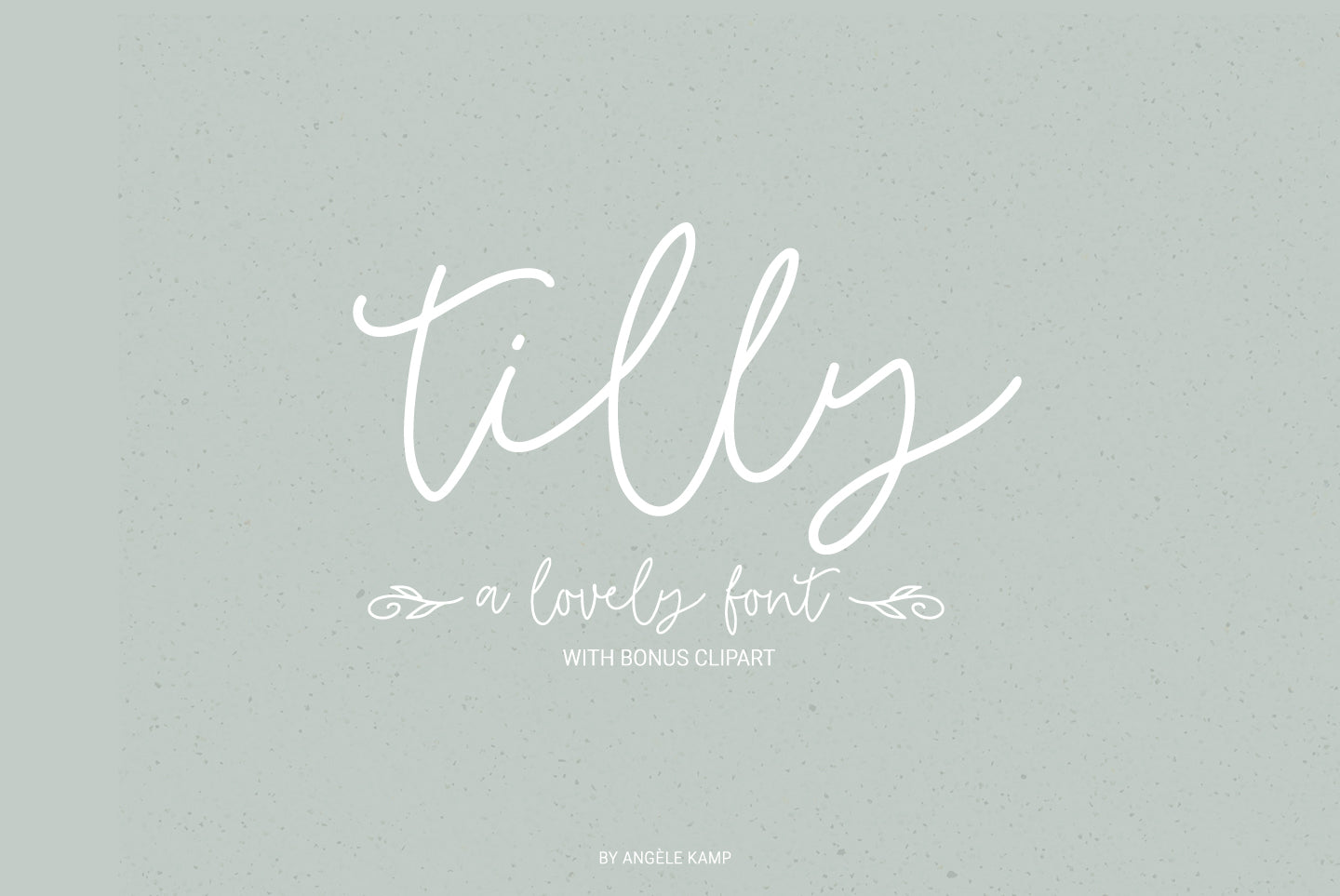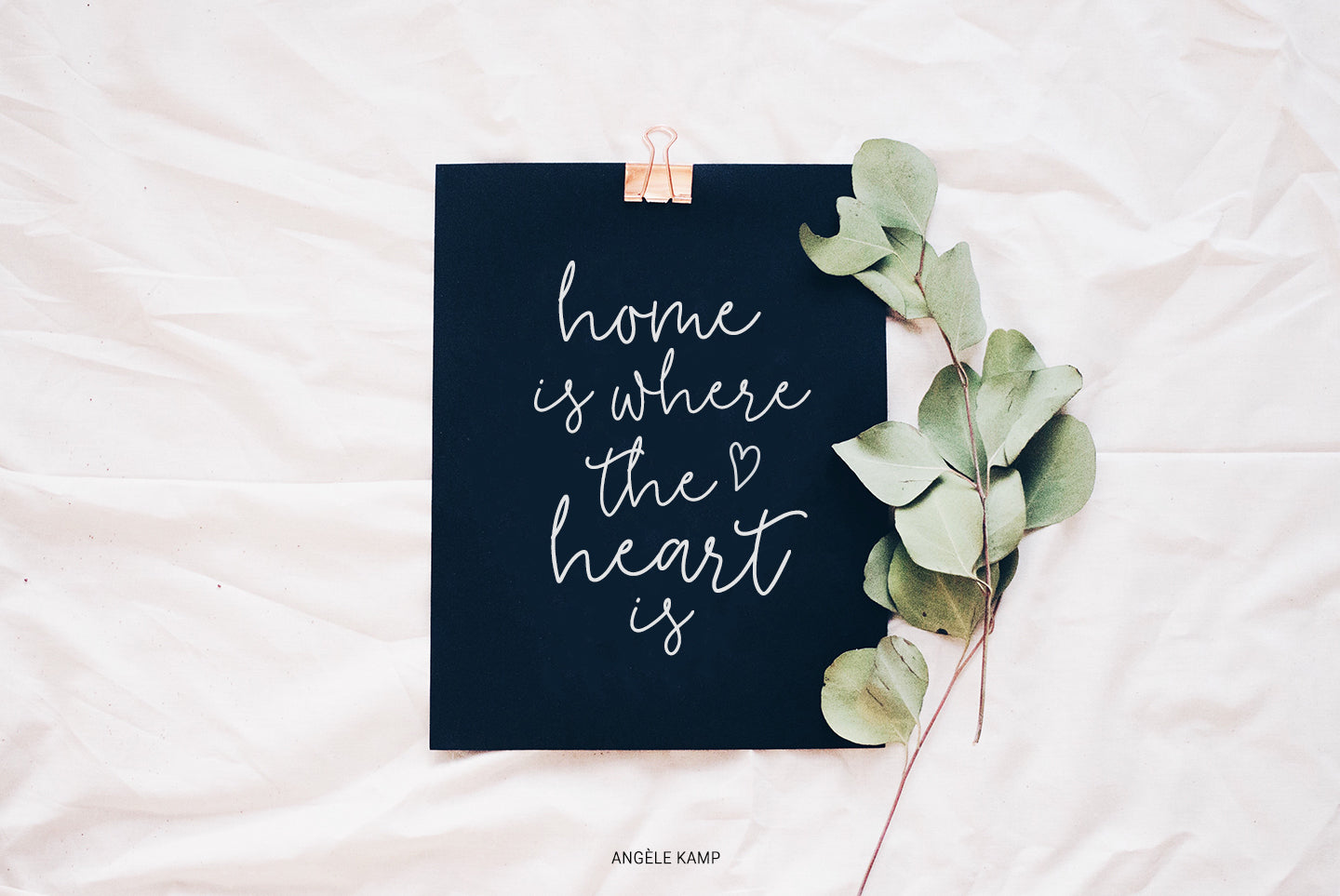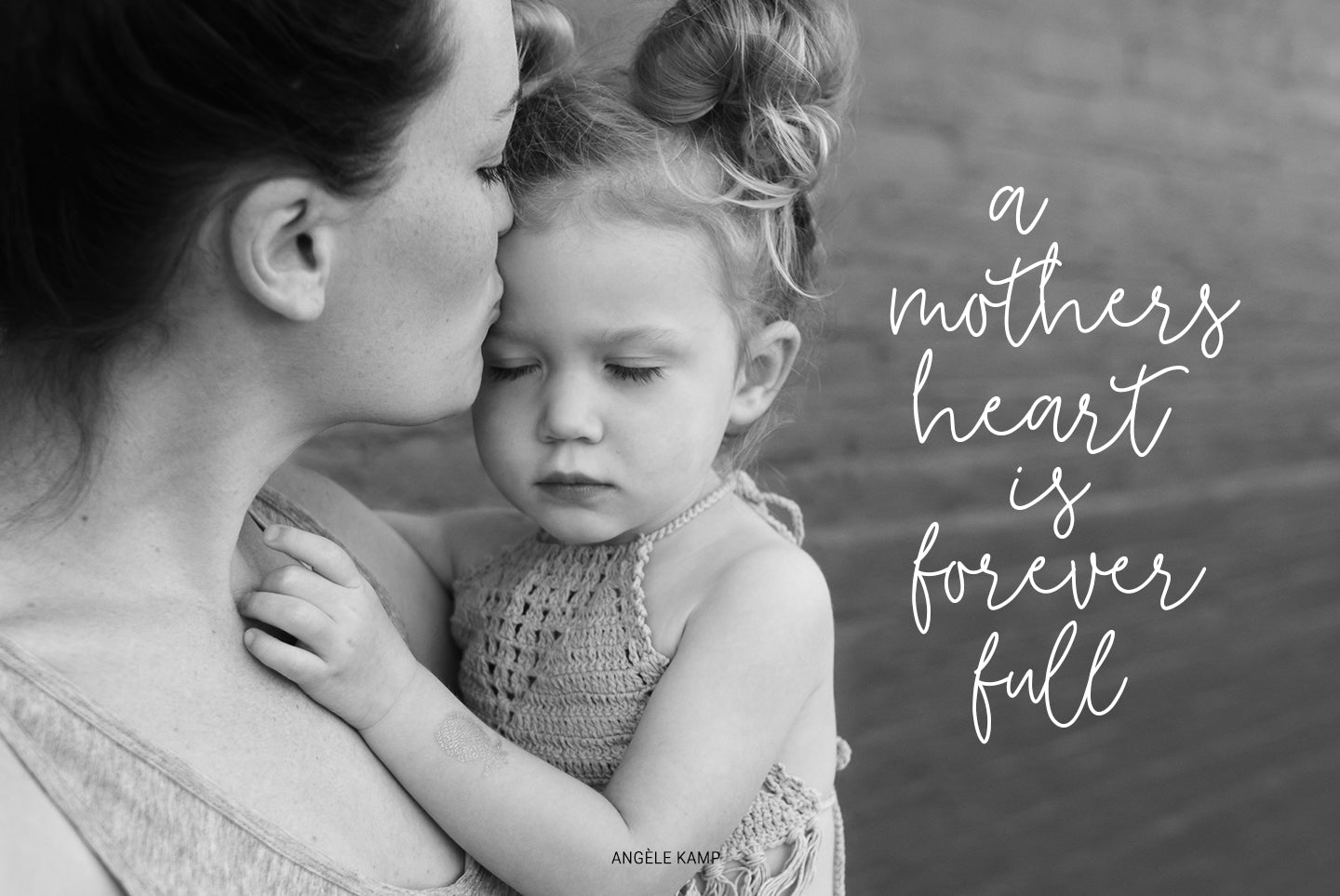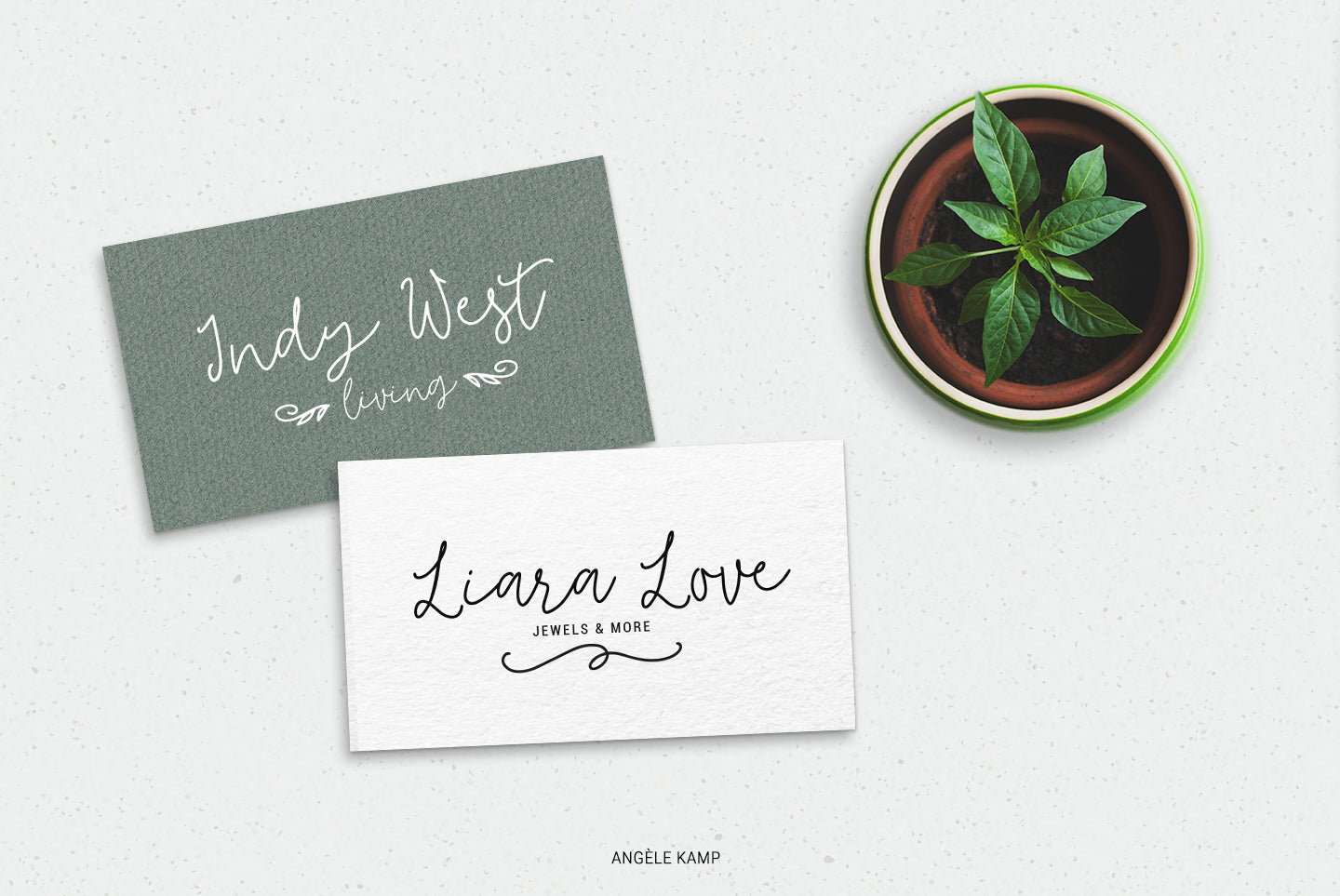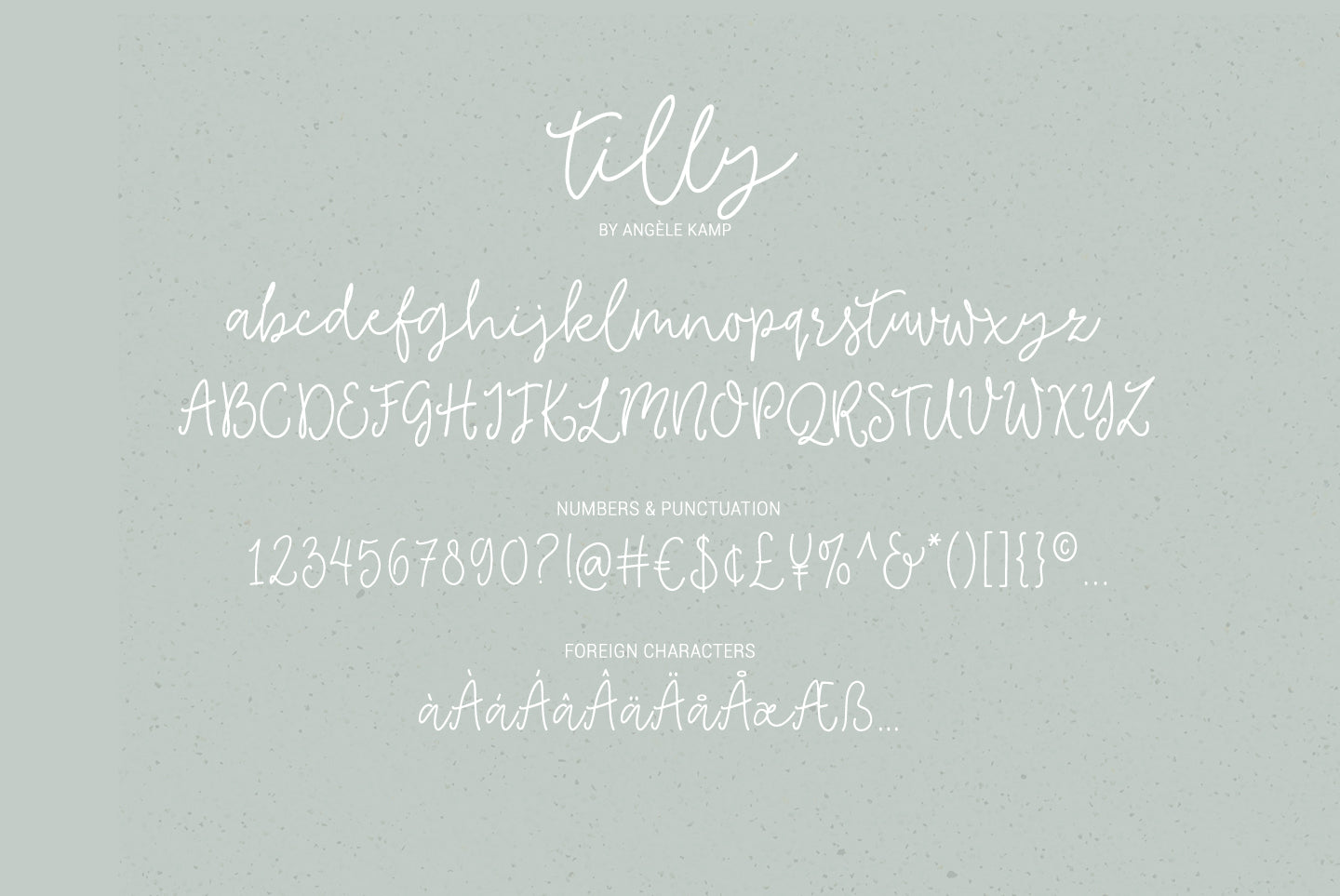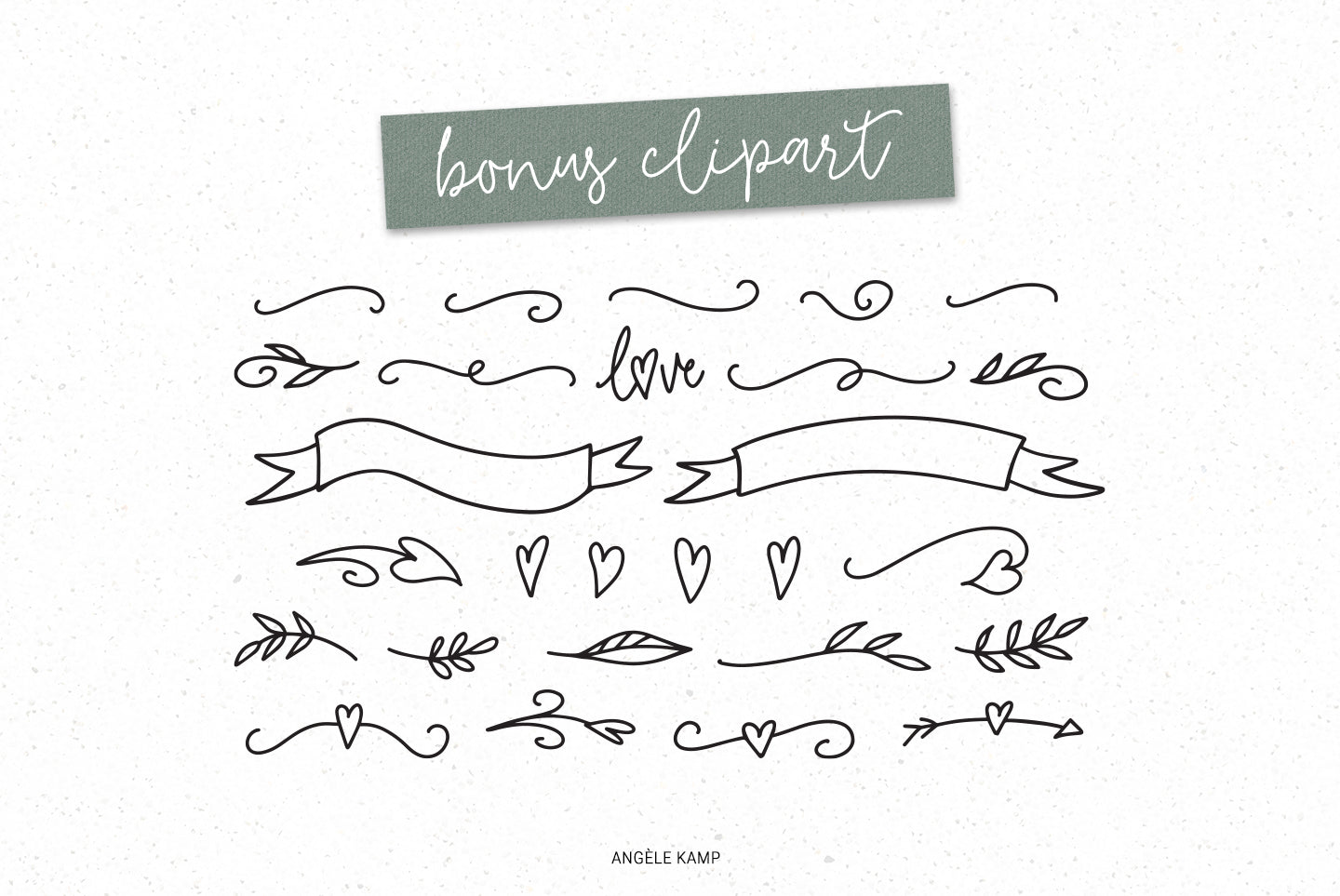
Tilly font
Tilly is a lovely font with a feminine, whimsical feel. This gorgeous font will look lovely on wedding invites, logos, quotes and it has nice smooth lines which makes it perfect for crafters and cutting machines. I've also added a lovely set of bonus clipart which will make designing so much easier and more fun.
WHAT'S INCLUDED
Tilly contains standard characters, lowercase, uppercase, numbers, punctuation, ligatures, alternates, international characters and bonus clipart.